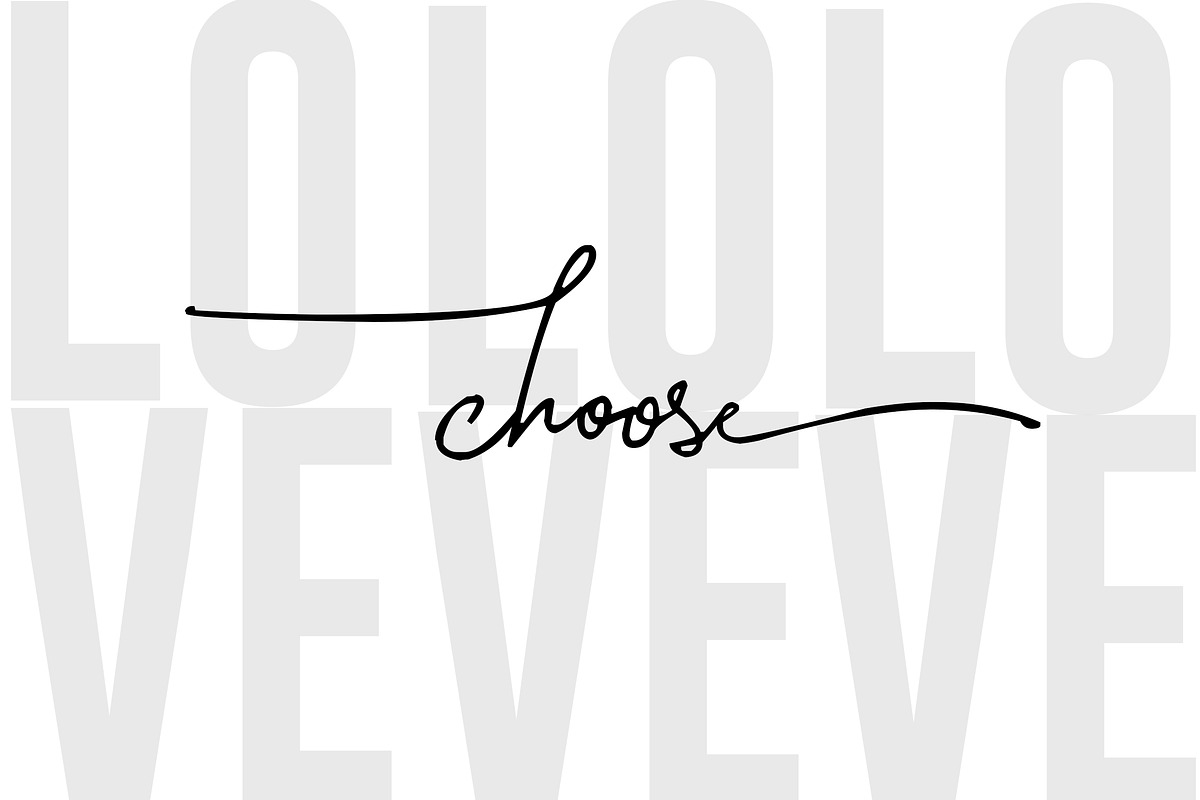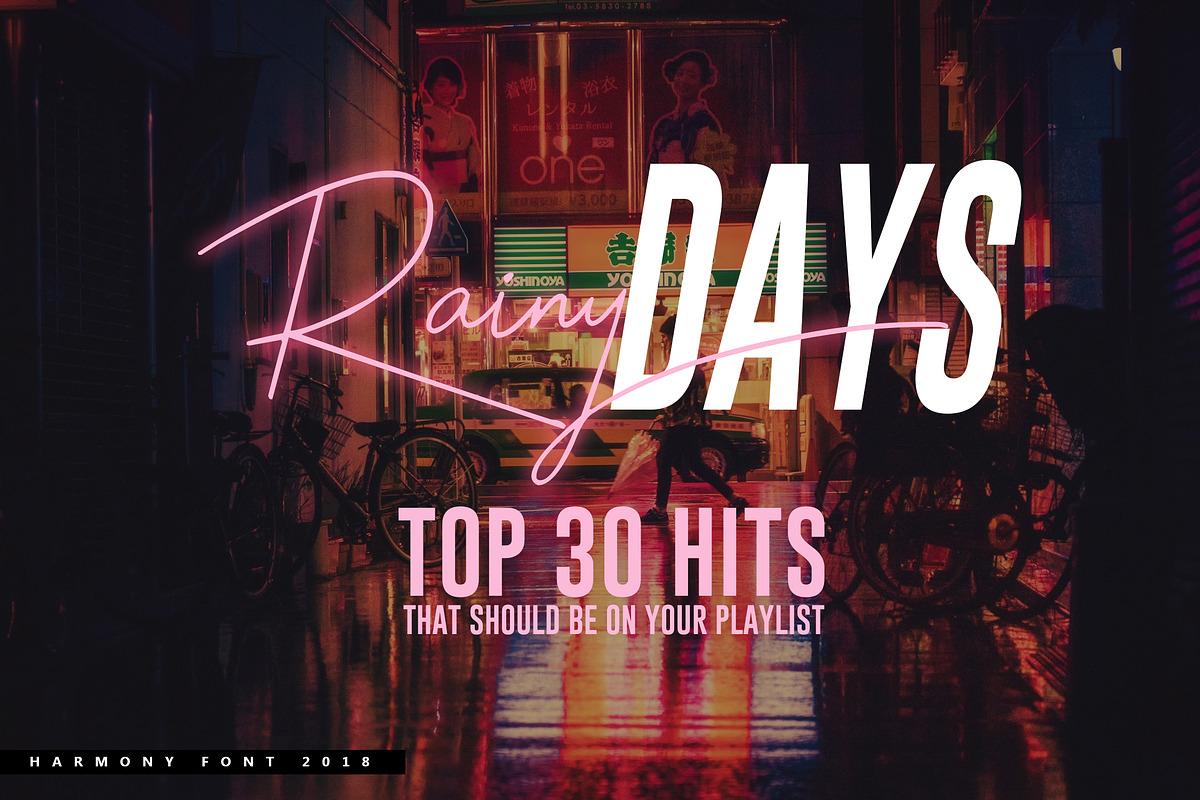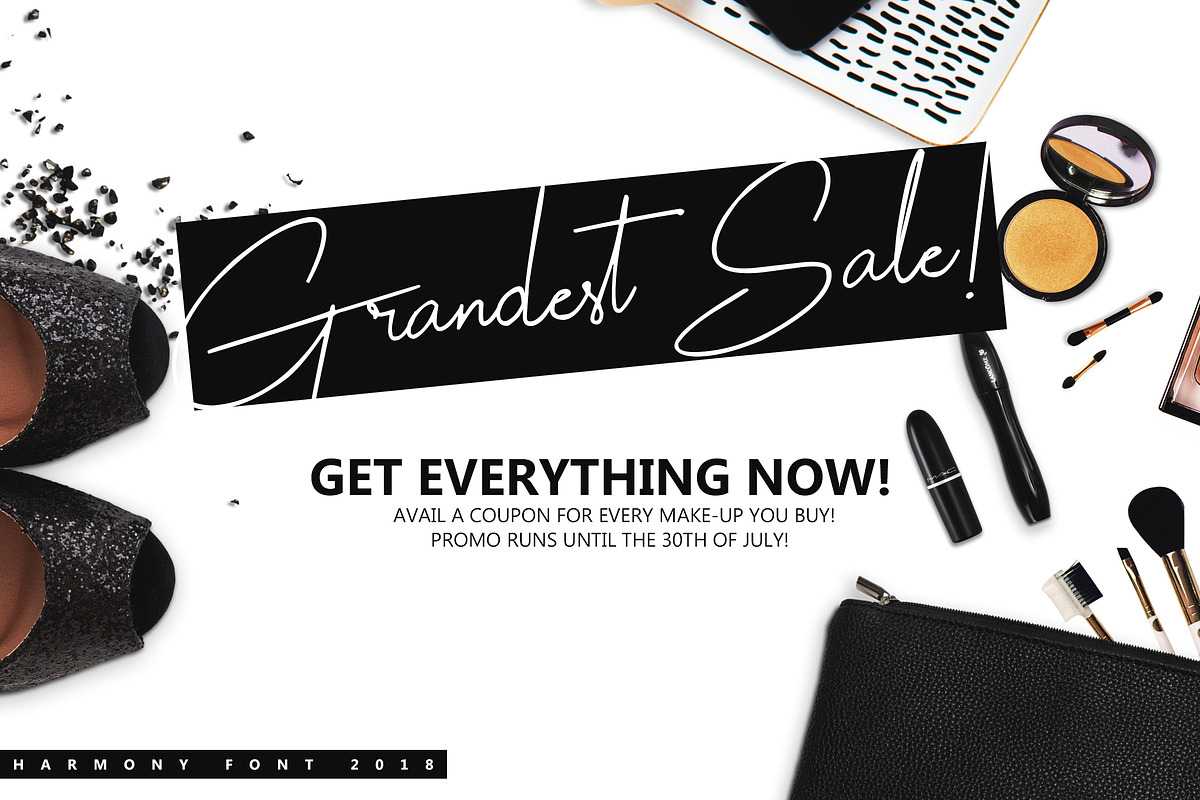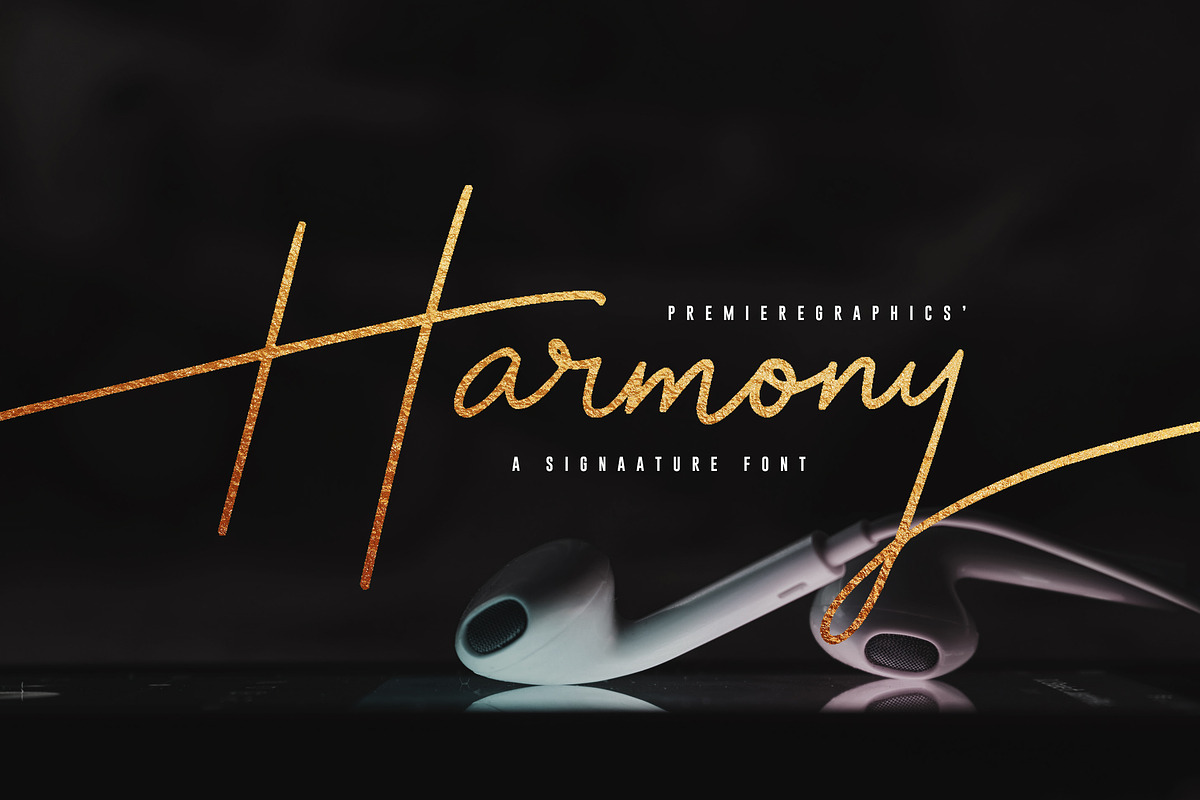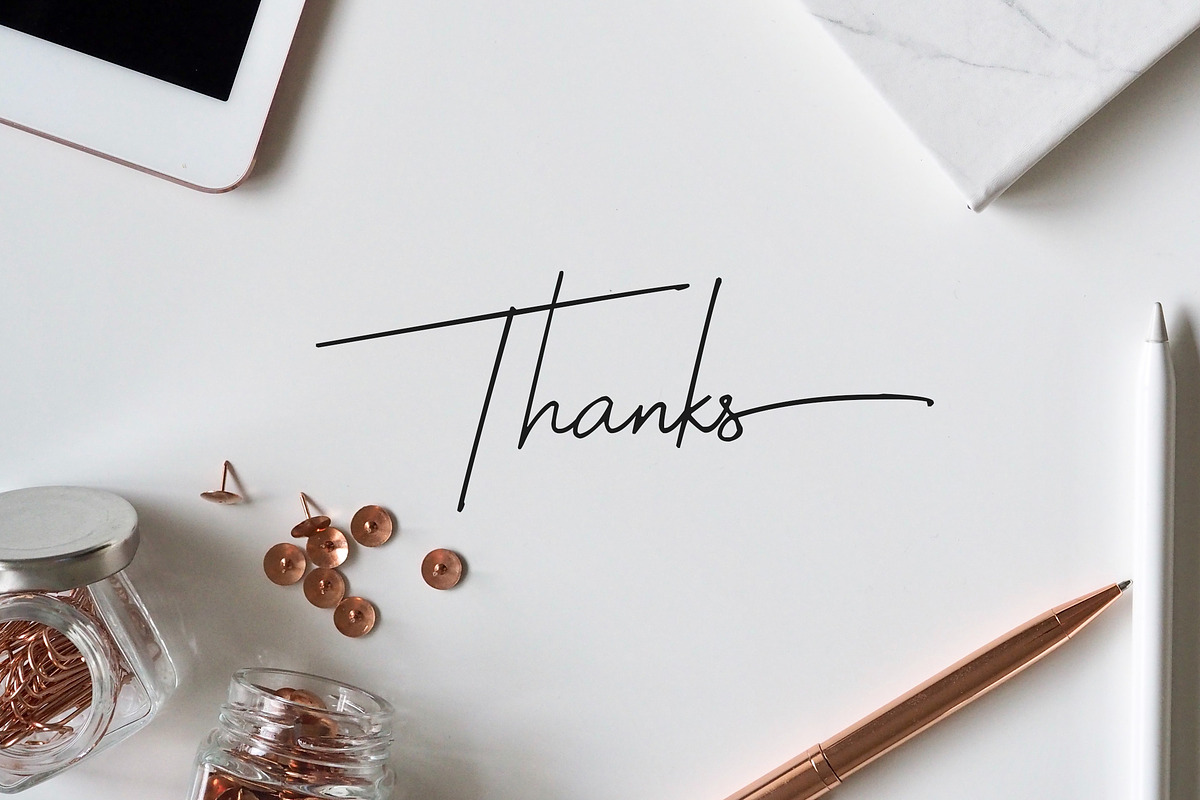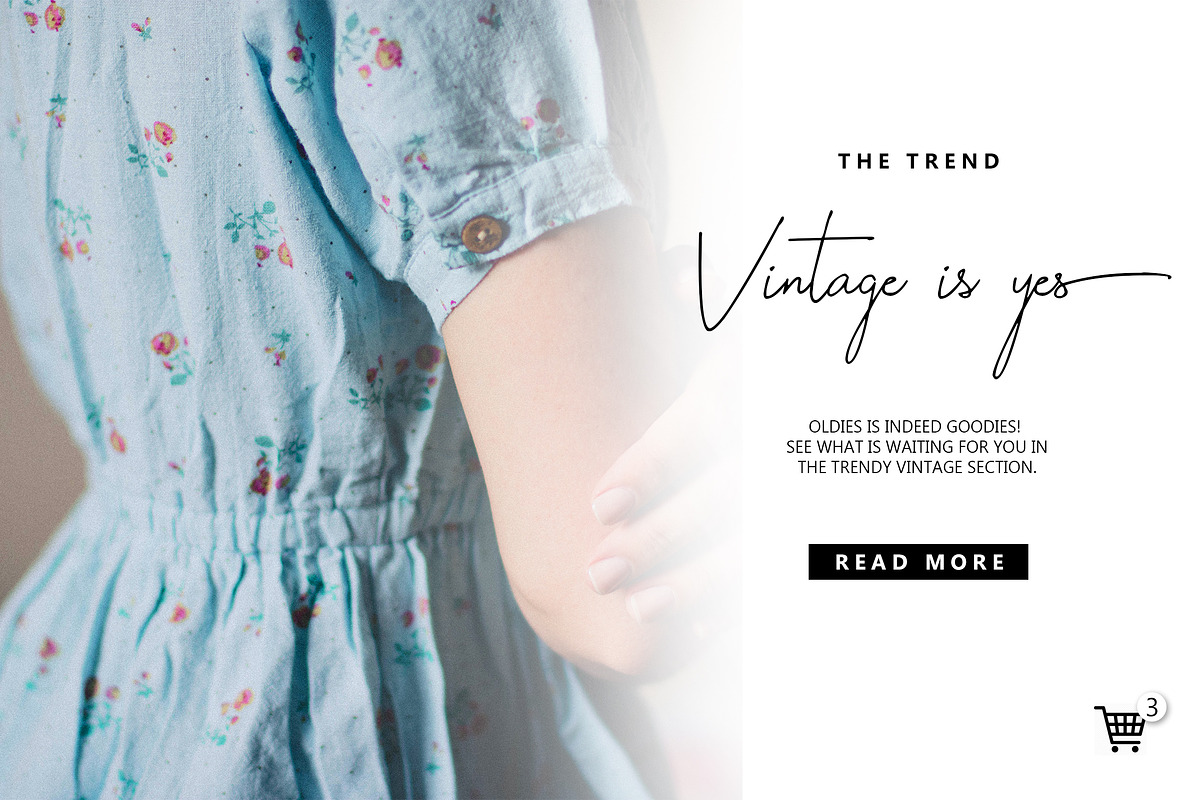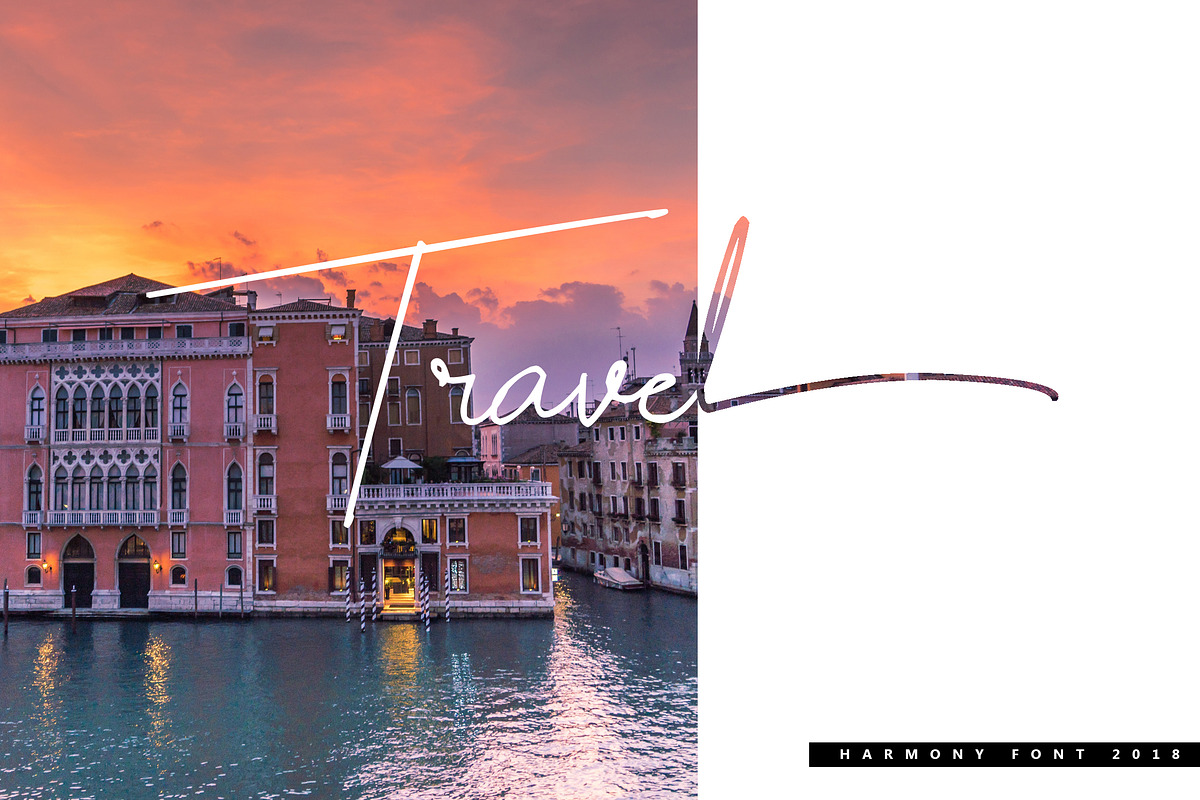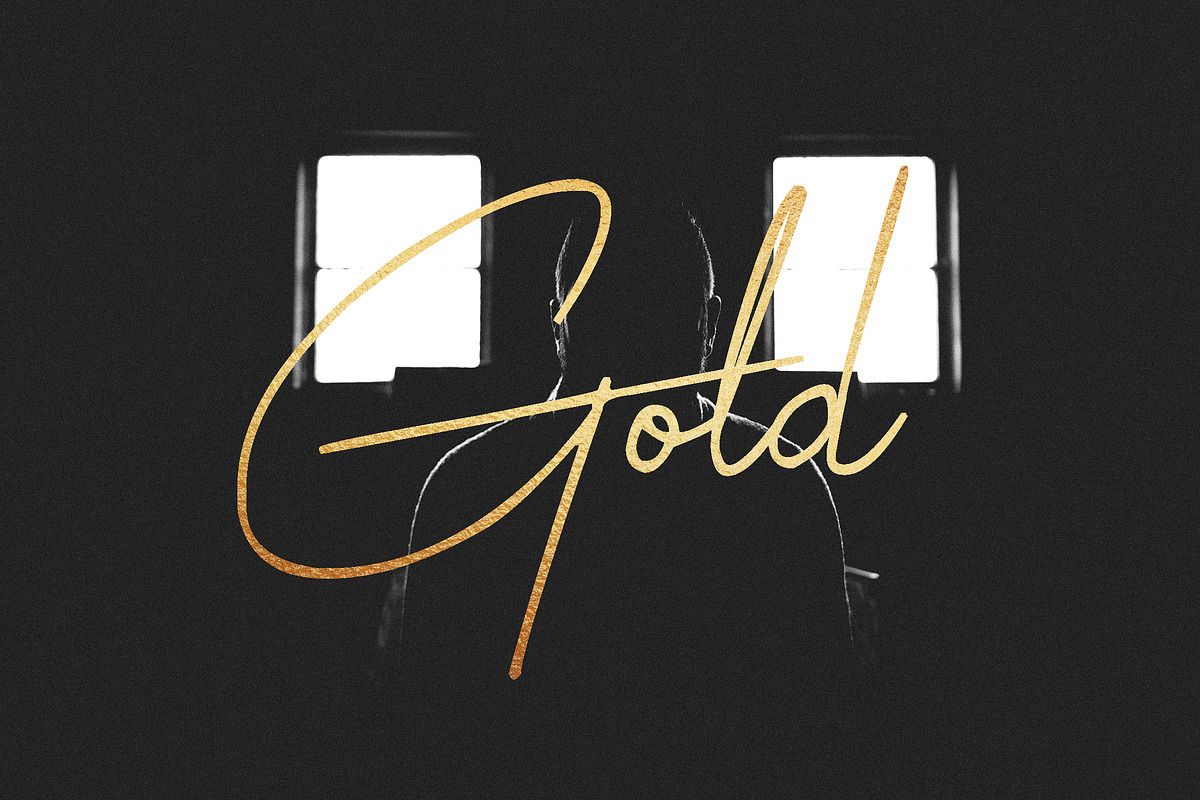
Harmony Script Font
Harmony makes small things grow, lack of it makes great things decay.
Introducing the latest addition to the script font families, the Harmony font! Harmony font is a handy script font for your blogs, photography, murals, calligraphy, graphic design, weddings, and many more. With its signature style, this font is ought to give you the satisfaction you are looking for on your project.
- The Harmony font includes numerals, extra characters, alternates, ligatures, and accents.
Harmony Script Font by Ryn Pojas fits naturally into Branding, posters, packaging, typography.